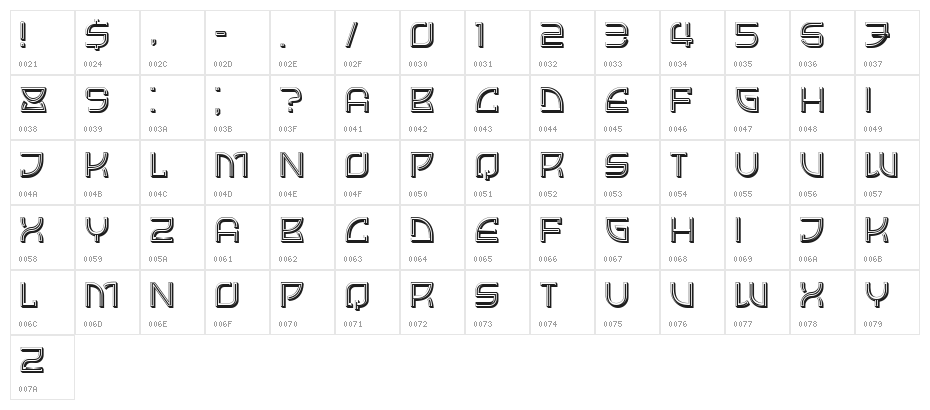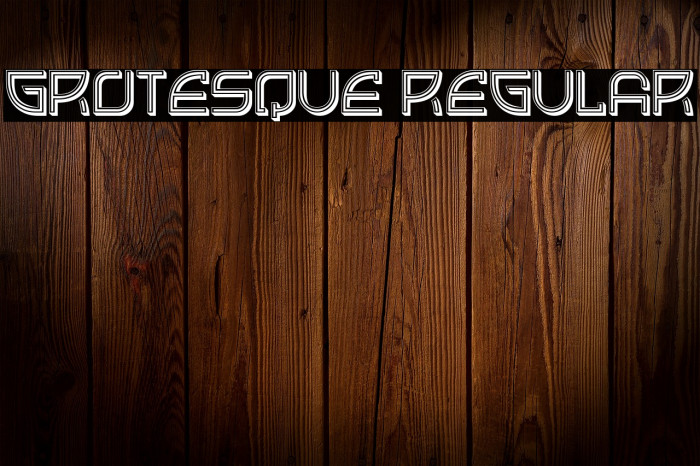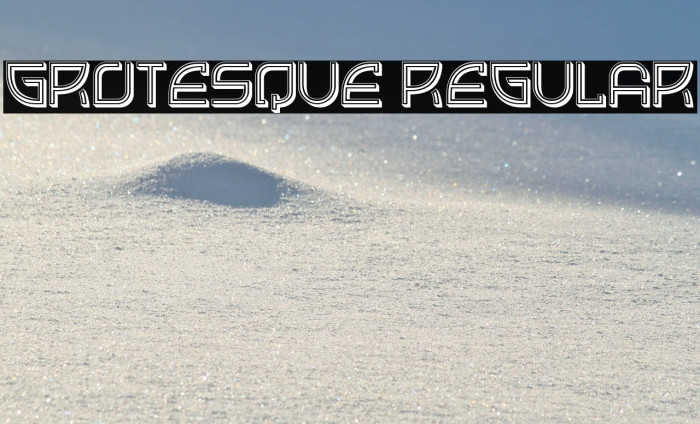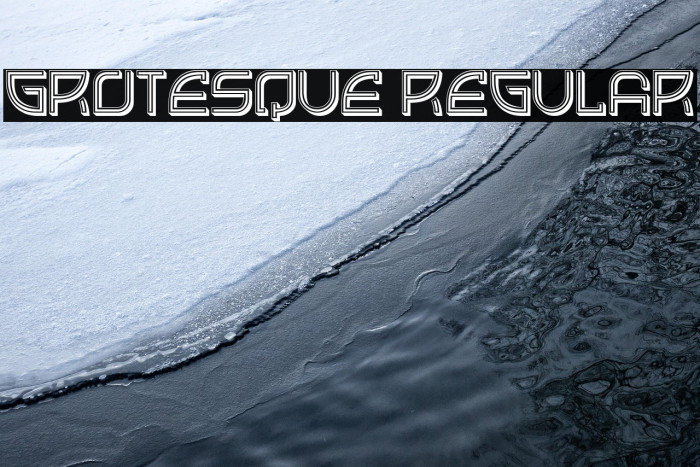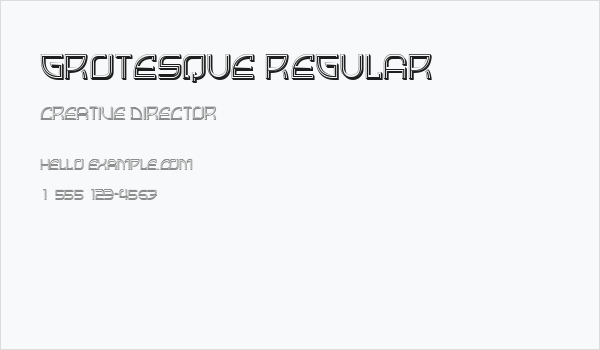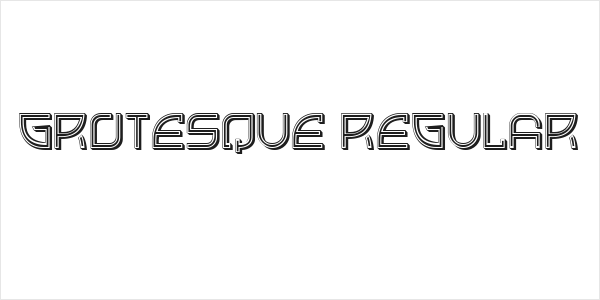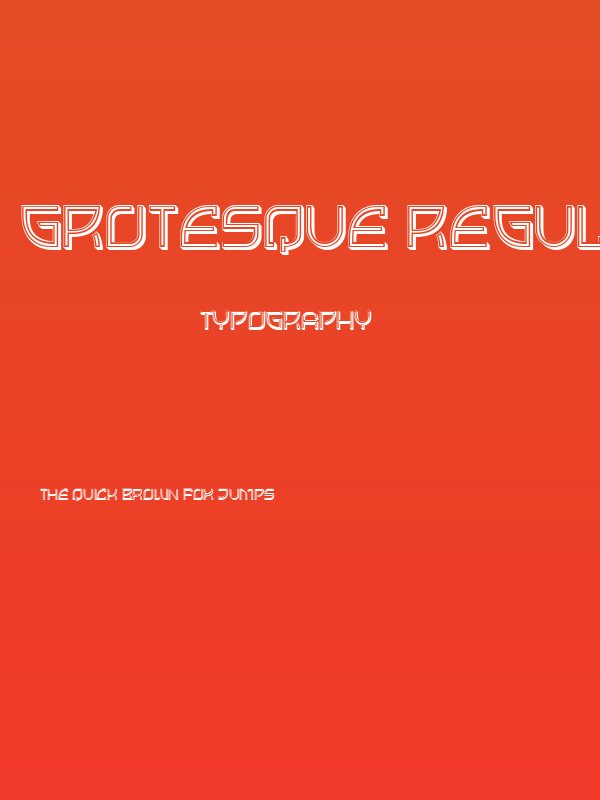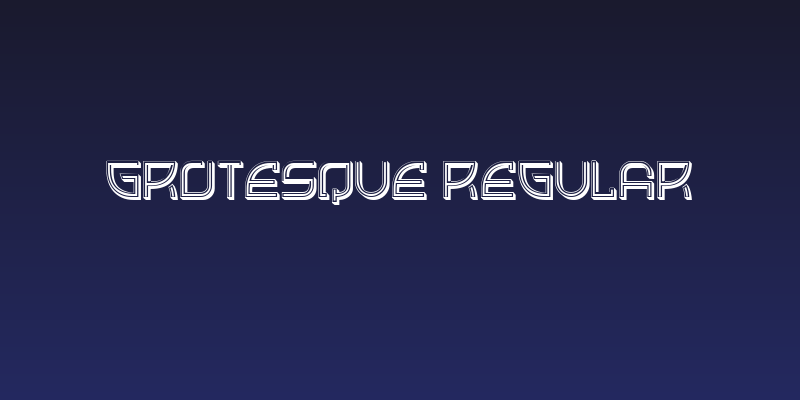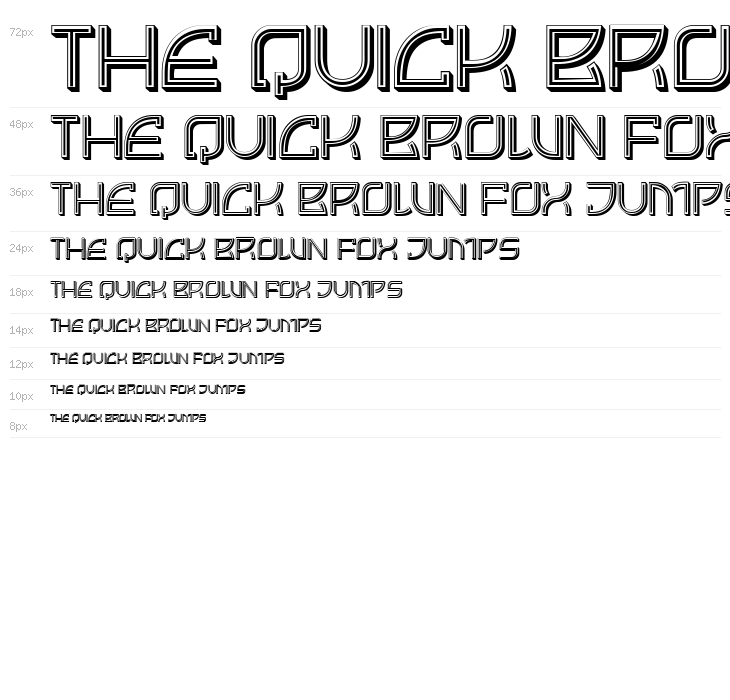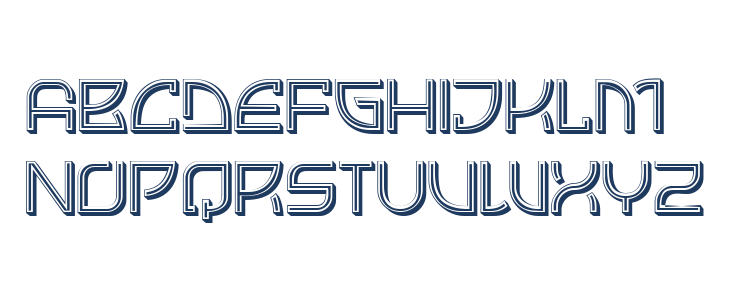
Grotesque Regular Font
Grotesque Regular Description
This font features a bold, futuristic design with a double-line structure that creates a striking visual effect. The characters are geometric and angular, with a consistent width and a unique, modern aesthetic. The uppercase and lowercase letters maintain a uniform style, while the numbers and special characters complement the overall design. The font's distinct appearance makes it ideal for projects that require a contemporary and eye-catching look.
| Proposed Projects | Ideal for sci-fi themed designs, modern branding, technology-related projects, and eye-catching headlines. |